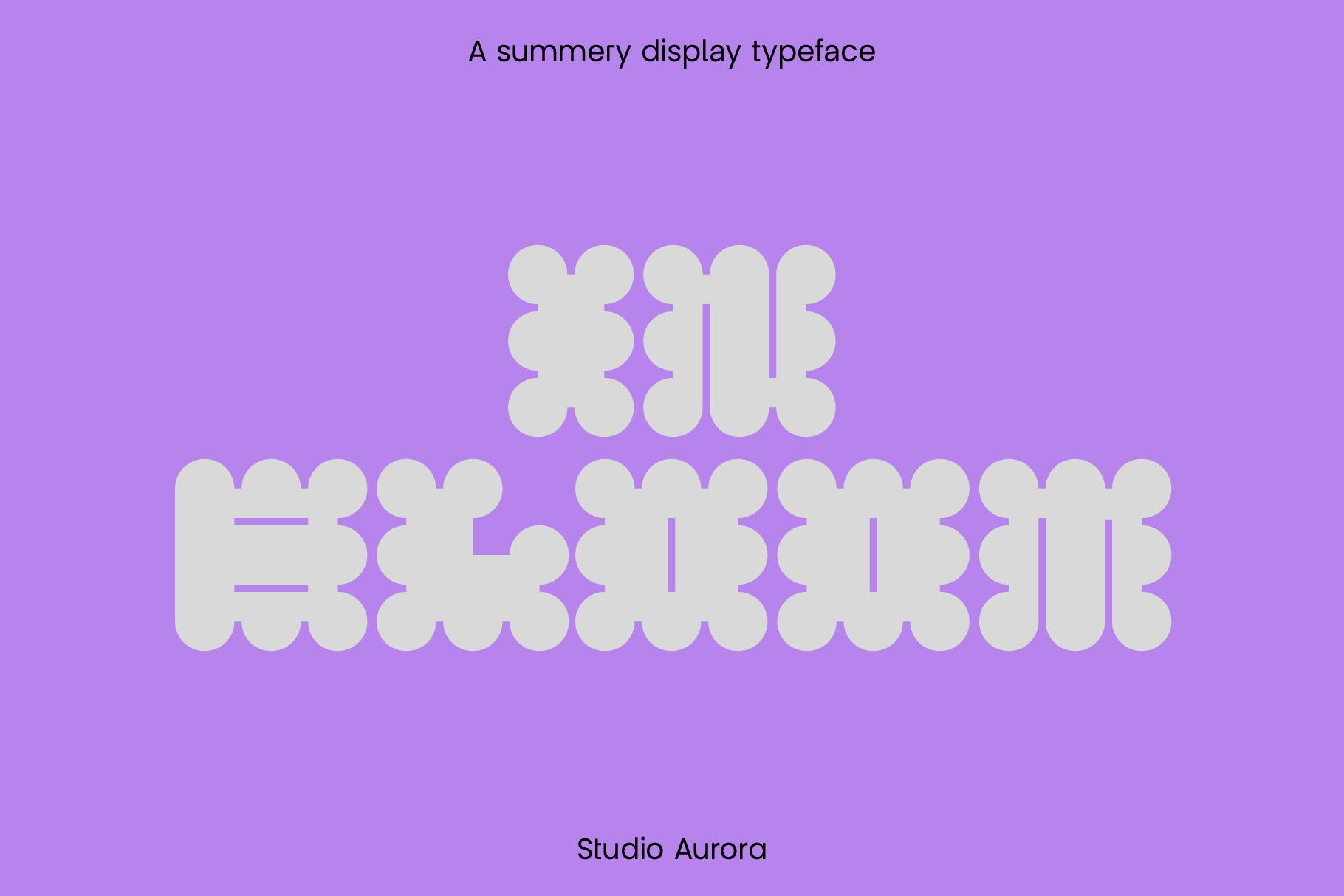
In Bloom - Summer Display Font
In Bloom is a quirky, unique, bold and summery display font.
Perfect for designs that require impact with a contemporary edge. Use it for a logo, a magazine masthead or as part of an email marketing campaign - it's up to you!